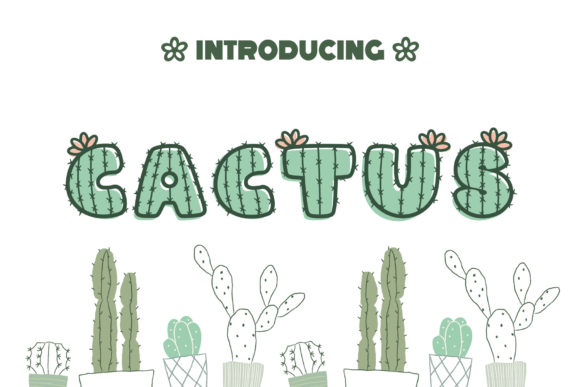
Introducing Cactus Font, the best-looking font for website design that will captivate and delight your audience. Created by the talented Fox7, this decorative font is a must-have for anyone looking to elevate their designs with a touch of whimsy and charm.
Cactus Font is more than just a font; it's a creative journey into a cute and fun cactus-inspired world. With its unique style and playful design, this font is perfect for a wide range of projects. From children's projects and blog posts to logos, branding, ads, invitations, greeting cards, planners, photo albums, and decorations - the possibilities are endless.
Imagine the smiles and admiration you'll receive when you incorporate Cactus Font into your designs. Its eye-catching appeal will instantly grab attention and leave a lasting impression. Whether you're designing for a professional website or a personal project, this font will add a touch of personality and uniqueness that sets your work apart.
But Cactus Font doesn't just look good; it performs exceptionally well too. With its keyword-rich composition, it's optimized to boost your website's search engine rankings. Stand out from the competition and attract more organic traffic by using this font strategically throughout your website.
Join the countless satisfied users who have already discovered the magic of Cactus Font. With its versatility and ability to enhance any creation, it's an invaluable asset to your font library. So why wait? Download Cactus Font today and unlock a world of creative possibilities. Let your imagination run wild and watch your designs bloom into something extraordinary.
Don't settle for ordinary fonts when you can have the best-looking font for website design. Experience the joy and excitement that Cactus Font brings to your projects. Get ready to leave a lasting impression and make your designs truly unforgettable.